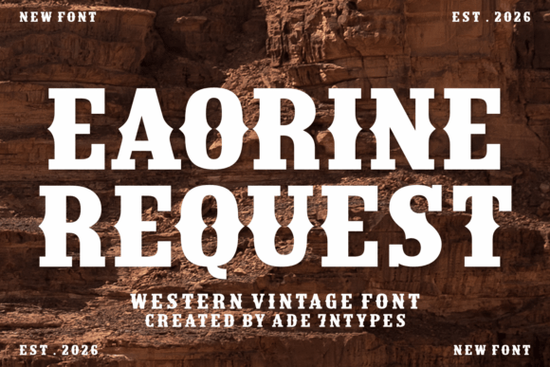
The Eaorine Request Font collection offers a unique blend of vintage Western charm and modern typography, making it a go-to resource for designers and creators looking to add a rustic touch to their projects. Whether you're working on a poster, branding material, or print-on-demand product, these fonts bring the spirit of the Old West to life with their distinctive character and style. The collection includes a variety of options, from bold and rugged to elegant and refined, ensuring there's something for every creative need.
One standout in the lineup is the Eaorine Request Font Slab Serif, which combines strength and elegance with its sturdy design. This font is ideal for headlines or any project that requires a strong visual presence. Its clean lines and bold structure make it easy to read while still maintaining a sense of authenticity. If you're looking for something more dynamic, the Flash Jersey Font Slab Serif offers a similar aesthetic with a slightly different flair, perfect for adding variety to your designs.
What Makes These Fonts Unique?
The Eaorine Request Font collection stands out due to its attention to detail and the way it captures the essence of Western culture. Each font in the collection has been designed with specific themes in mind, such as the ruggedness of the frontier, the playfulness of a saloon, or the elegance of country life. For example, the Cowboy Font brings a raw, earthy texture that evokes the feeling of a dusty trail, while the Saloon Font adds a touch of whimsy and nostalgia, ideal for vintage-style branding.
The Rodeo and Ranch Fonts are particularly well-suited for projects that require a bold and confident look. Their thick strokes and strong shapes make them perfect for headlines or logos that need to stand out. Meanwhile, the Retro Western Font and Bold Serif Font offer versatility, allowing you to create eye-catching designs without sacrificing readability. These fonts are especially useful for small businesses or creatives who want to maintain a consistent brand identity across multiple platforms.
How to Use These Fonts in Your Projects
Whether you're designing a poster, creating packaging, or working on a website, the Eaorine Request Font collection provides a range of options to suit your needs. For instance, the Country Western Font is great for adding a rustic feel to printed materials, while the Wild West Font can be used to give digital content a nostalgic twist. The Western Display Font, with its intricate details, is ideal for decorative elements that require a high level of visual interest.
When choosing a font, consider the tone and message you want to convey. A font like the Slab Serif might work well for a professional or traditional brand, while the Saloon Font could be better suited for a fun or playful project. Experimenting with different fonts can help you find the perfect match for your creative vision.
Where to Find More Inspiration
Whether you're a designer, crafter, print-on-demand seller, or hobbyist, the Eaorine Request Font collection provides a rich set of options to elevate your projects. With its mix of traditional and modern styles, this collection is a valuable addition to any creative toolkit.